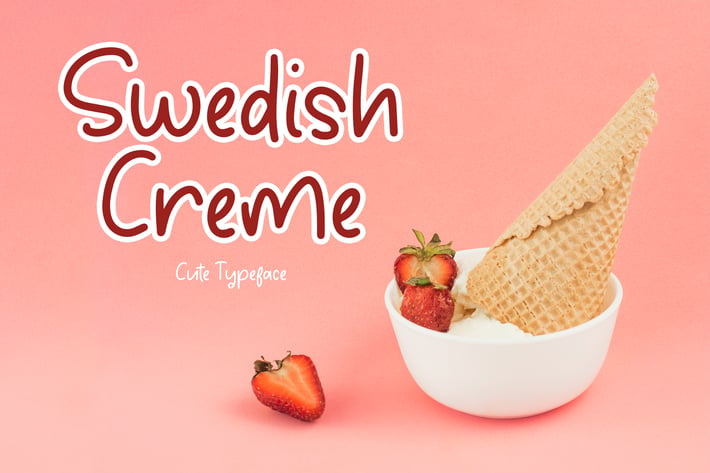
Swedish Creme Cute Typeface
Swedish Creme Cute Typeface Handwritten cute font for any kind of fun project branding, logo, and marketing editorial, can make your text appear playful, excited, and modern!
Swedish Creme is perfect for branding projects, logo, wedding designs, social media posts, advertisements, product packaging, T-shirt design, product designs, label, photography, watermark, invitation, stationery, and any projects.